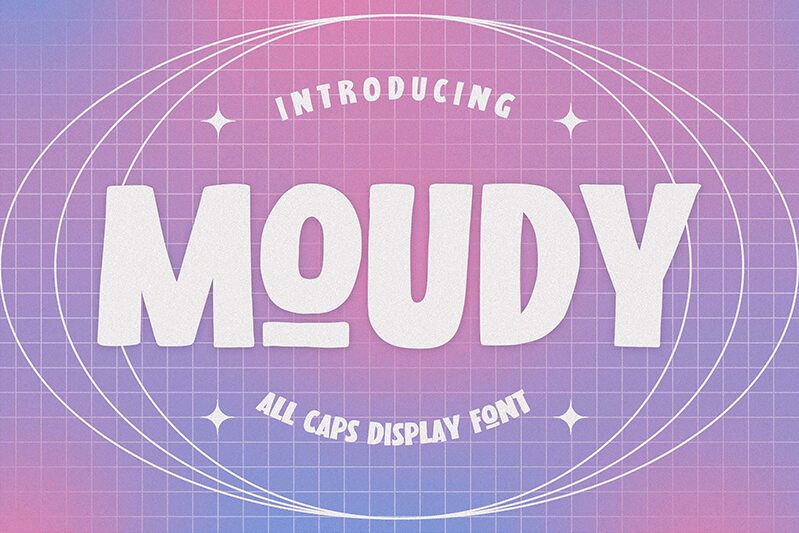
Moudy
Moudy emerges as a playful yet commanding display font meticulously crafted by Gassstype. With its cartoon-inspired aesthetics, this bold and semi-condensed typeface adds a whimsical touch to any creative canvas. MOUDY captivates with its modern style and dramatic movement, evoking the spontaneity of quick, casual strokes that bring authenticity and fun to your design projects.
Embrace MOUDY's textured uniqueness for an array of applications-whether it's sprucing up labels with an eye-catching flair, injecting personality into posters, or adding a touch of charm to branding and packaging. This all-caps gem is not just about looks; it's about creating connections through its natural appeal. For designers seeking a typeface that blends playfulness with impact, MOUDY is the go-to choice for making your message stand out in the vast sea of visual communication.